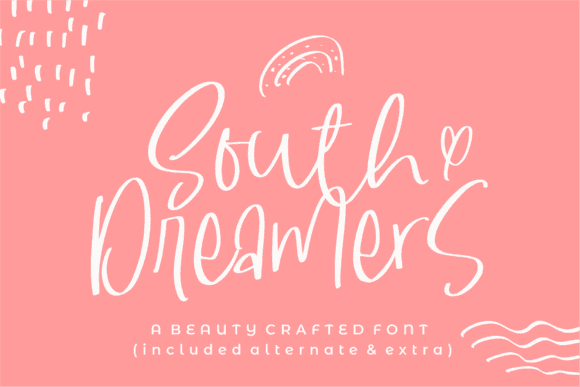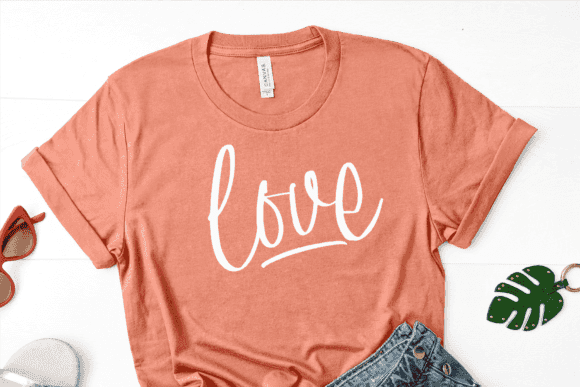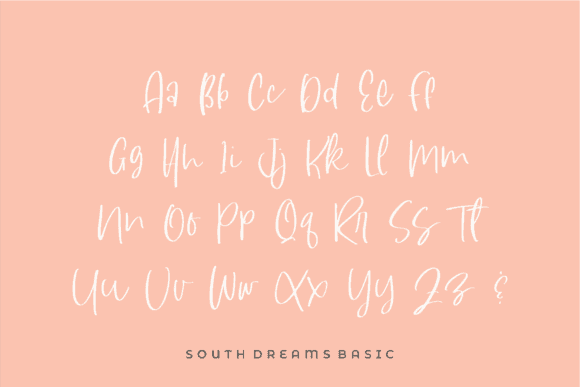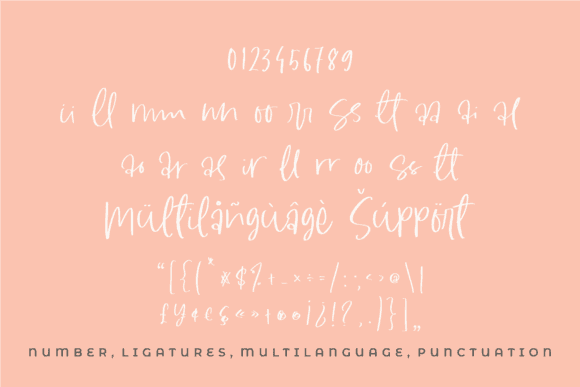
South Dreamers is a font that is quite conspicuous. It is unique especially for designs such as wedding invitations, thank you cards, quotes, displays, and greeting cards. Logos or business cards that need to have that special touch.